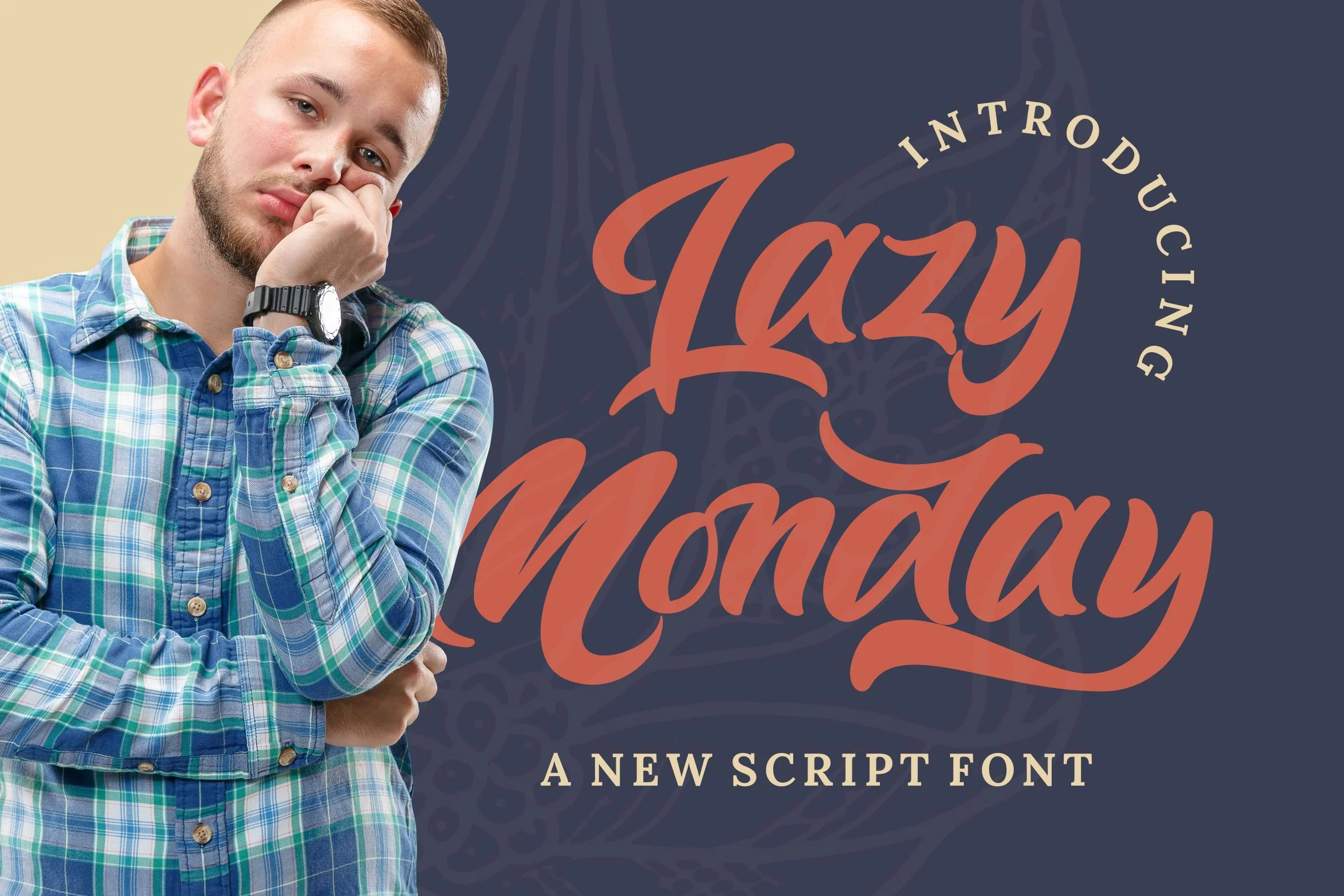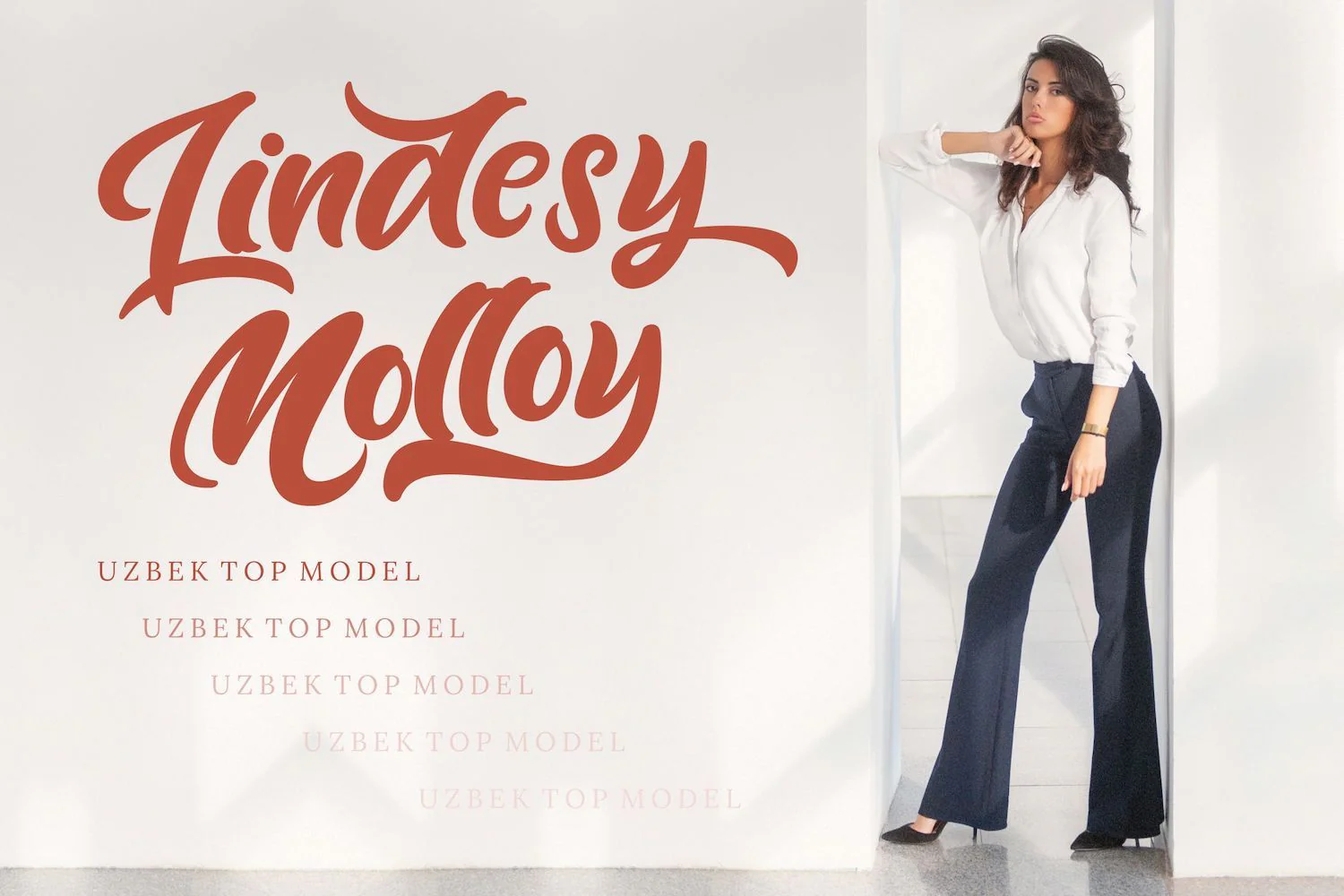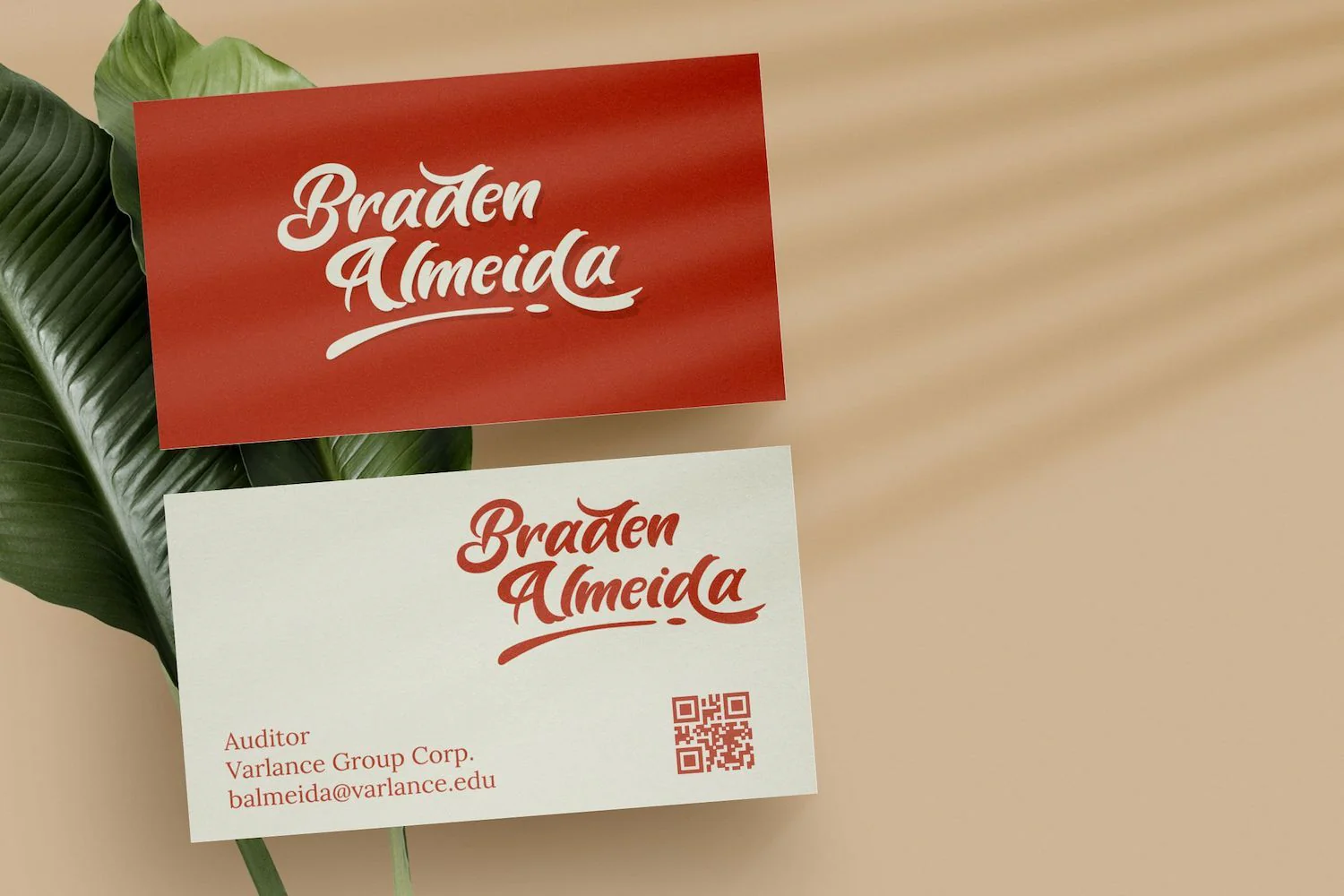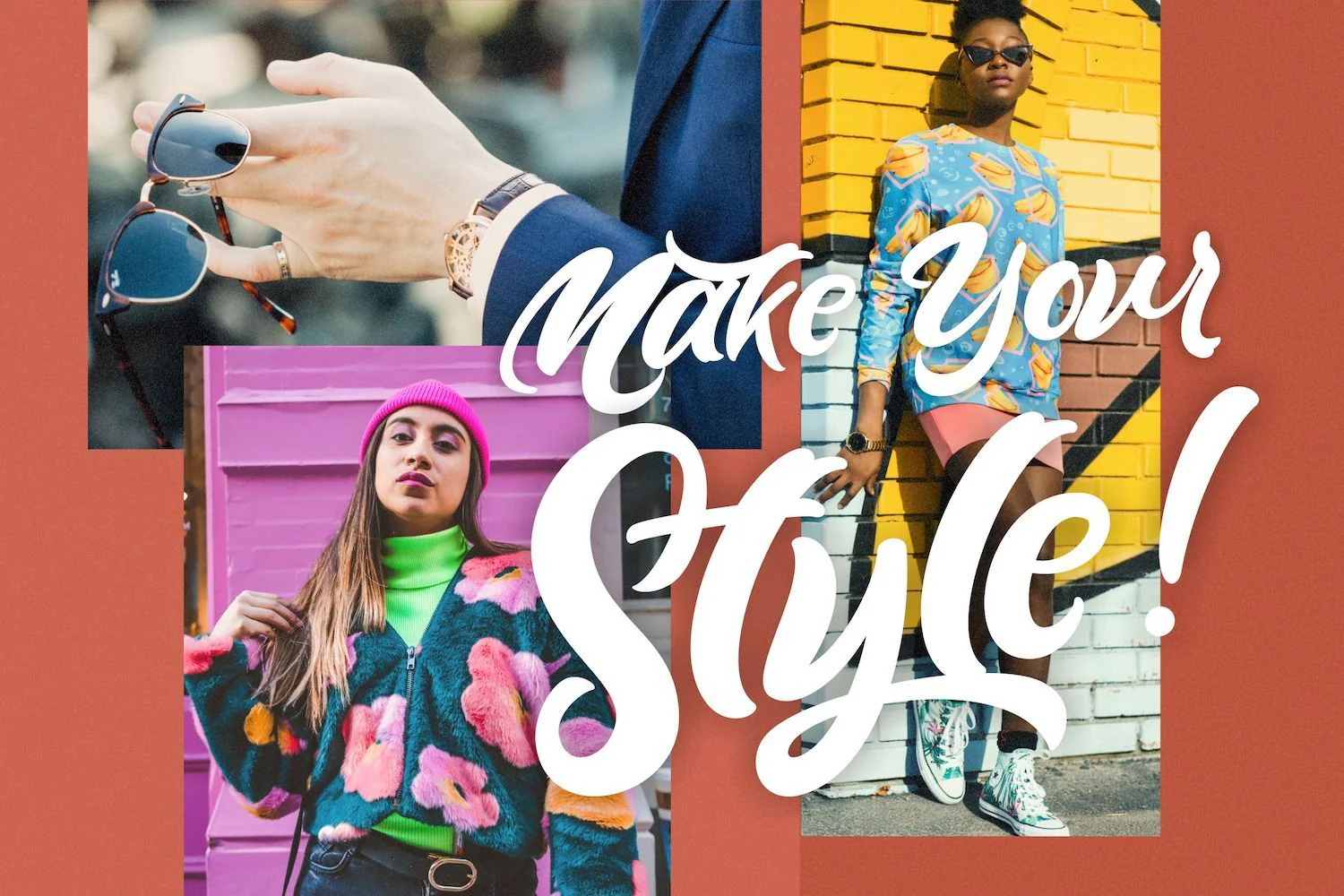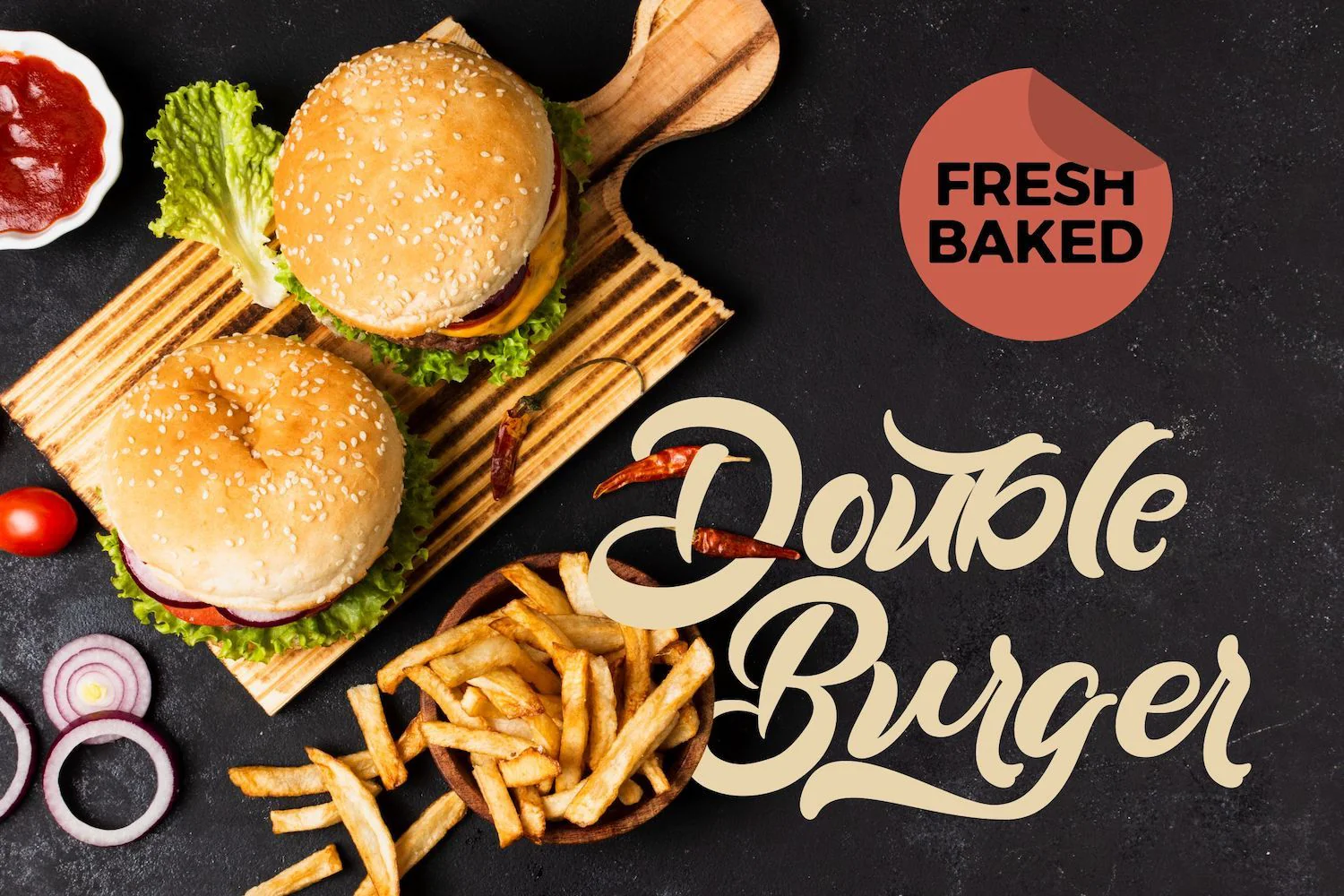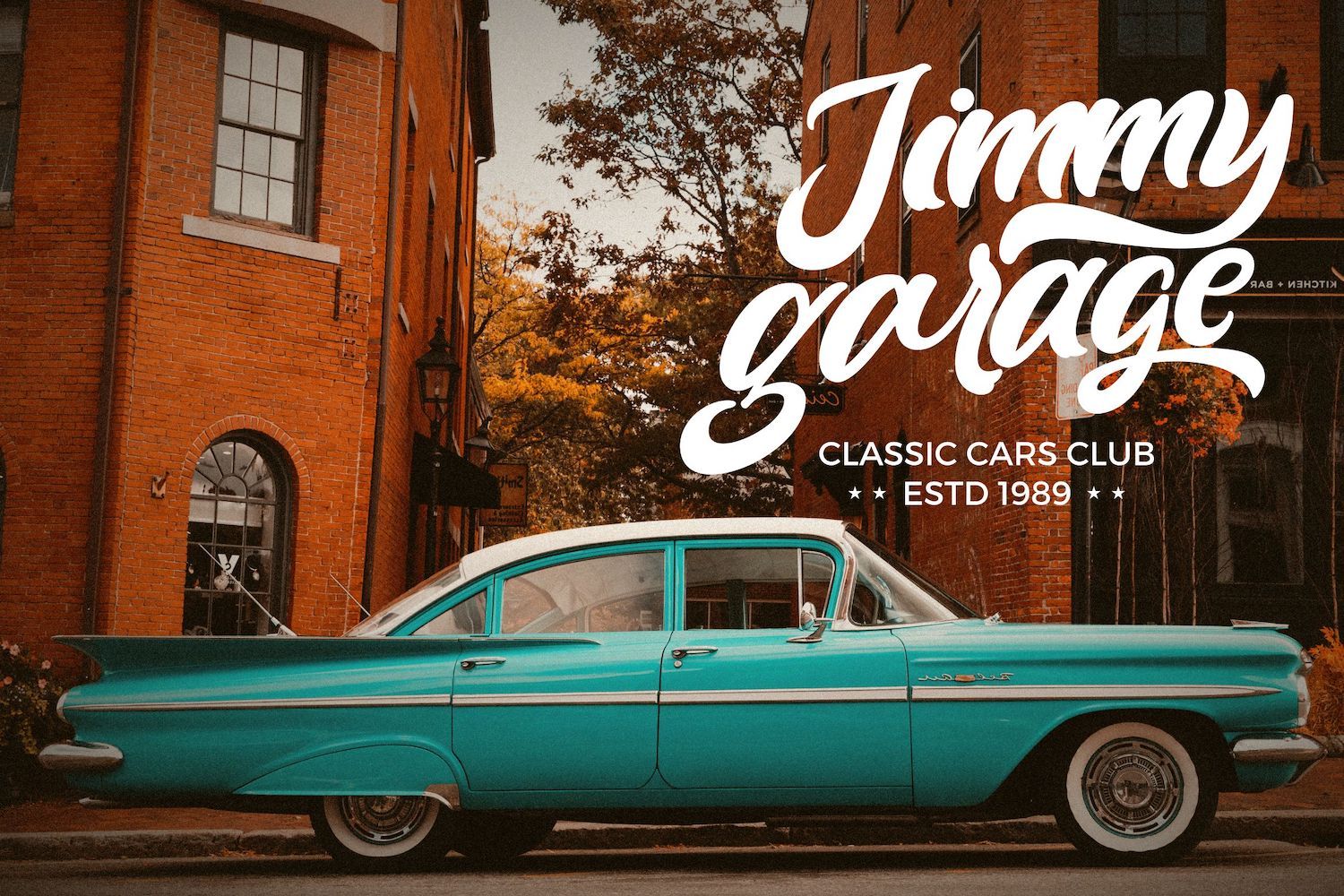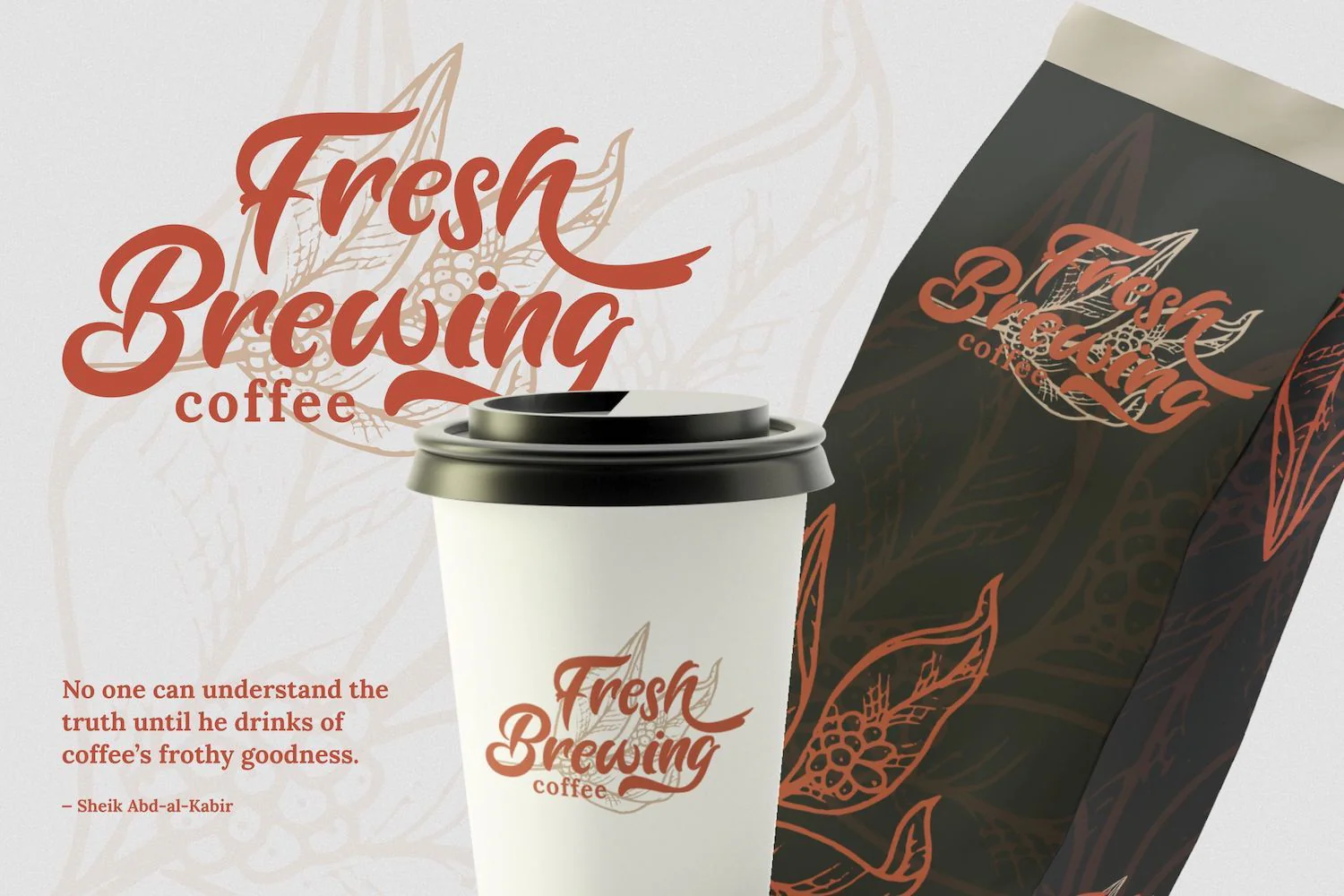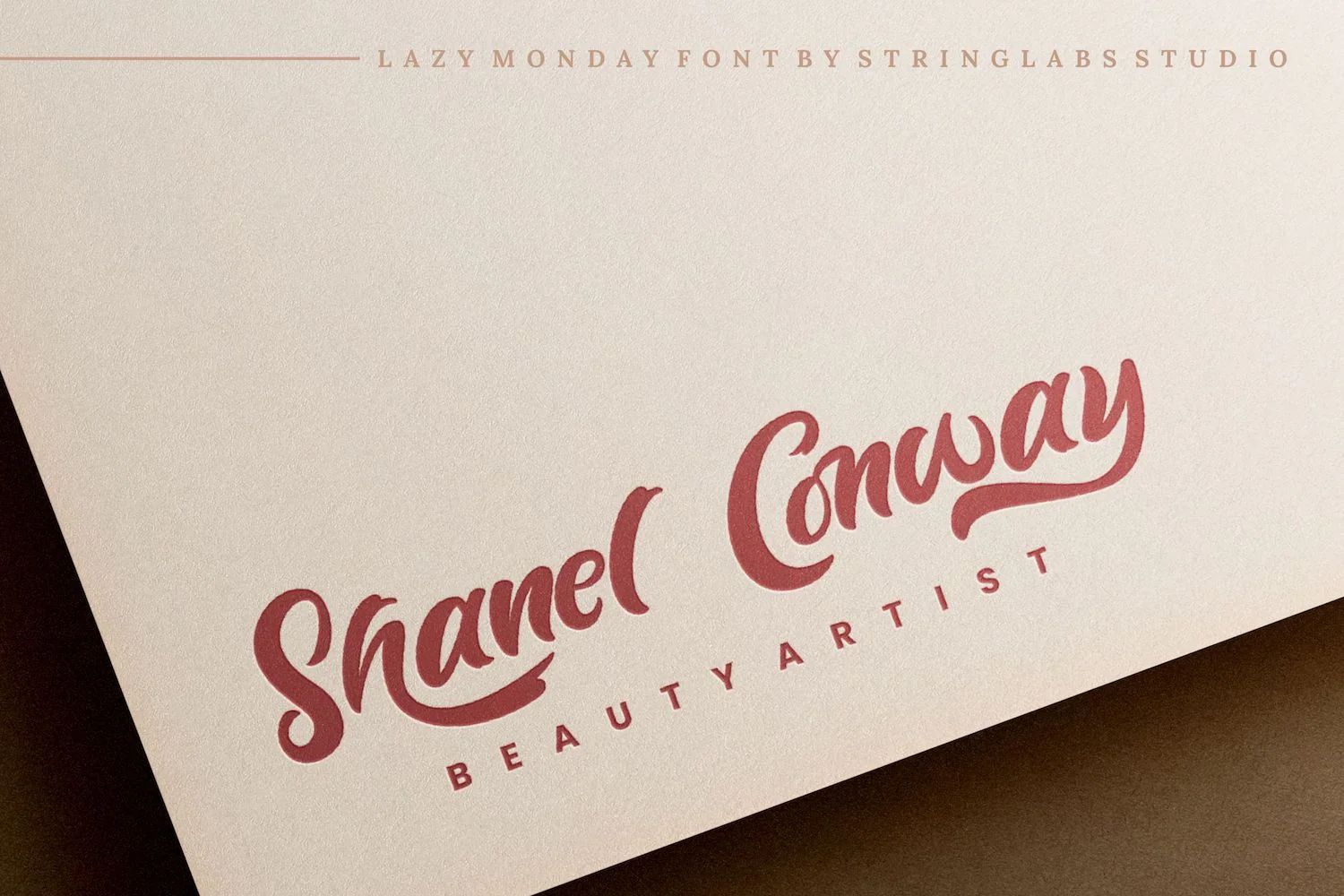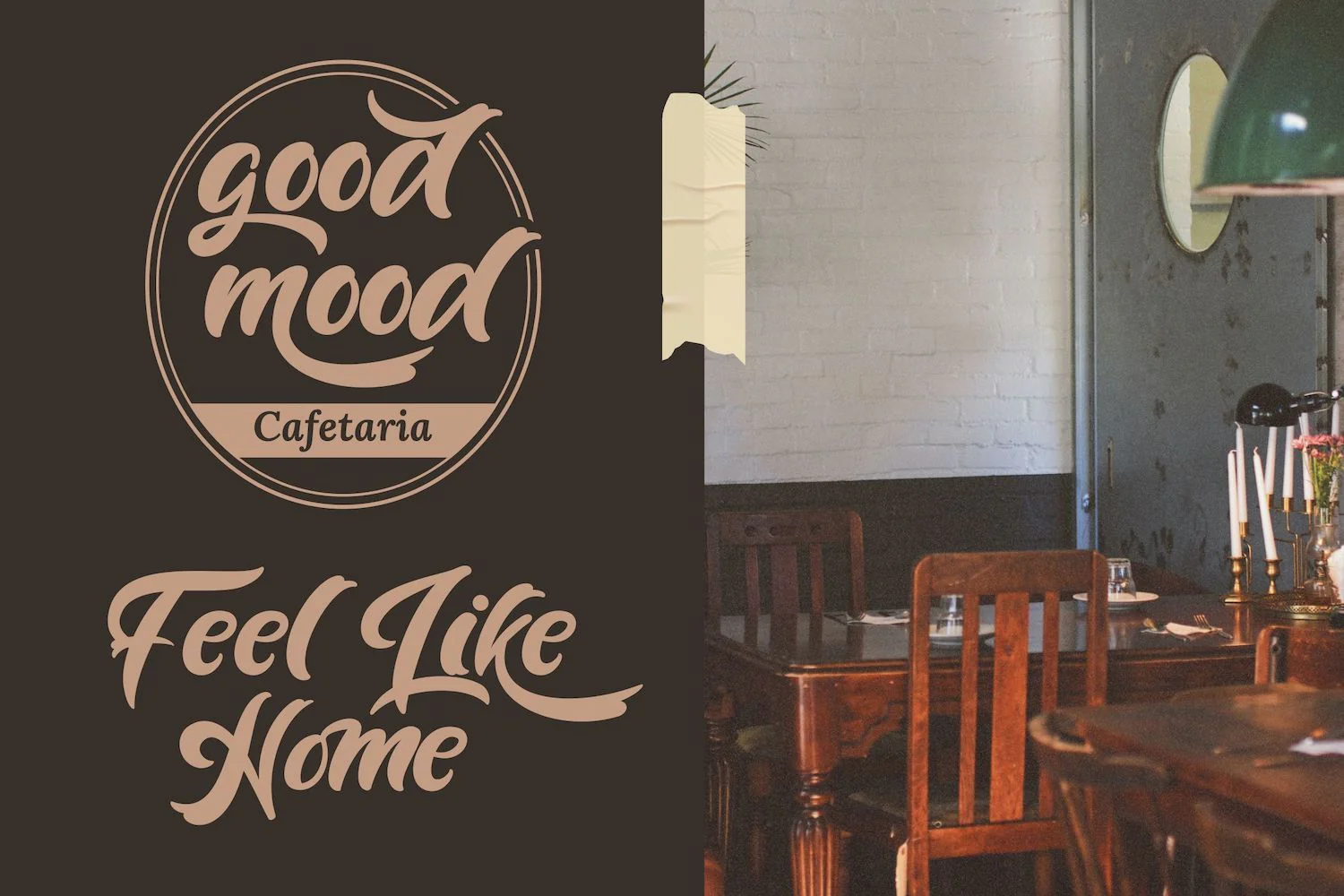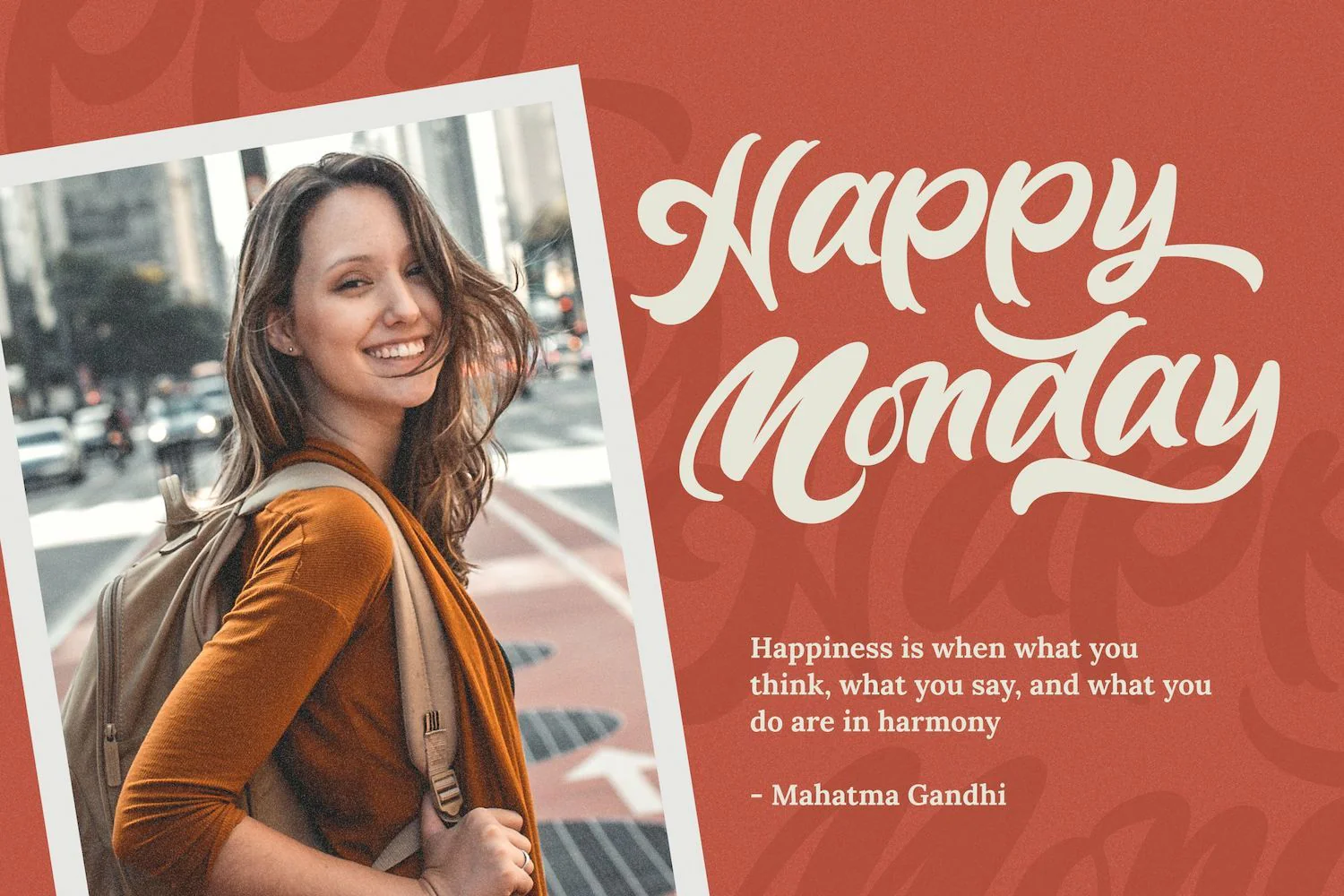
Lazy Monday - Bold Script Font
Introducing Lazy Monday - Bold Script Font
Lazy Monday is a flowing and beautiful handwritten font. It is PUA encoded which means you can access all of the glyphs and swashes with ease! It features a varying baseline, smooth lines, gorgeous glyphs and stunning alternates. Fall in love with its incredibly versatile style and use it to create spectacular designs!